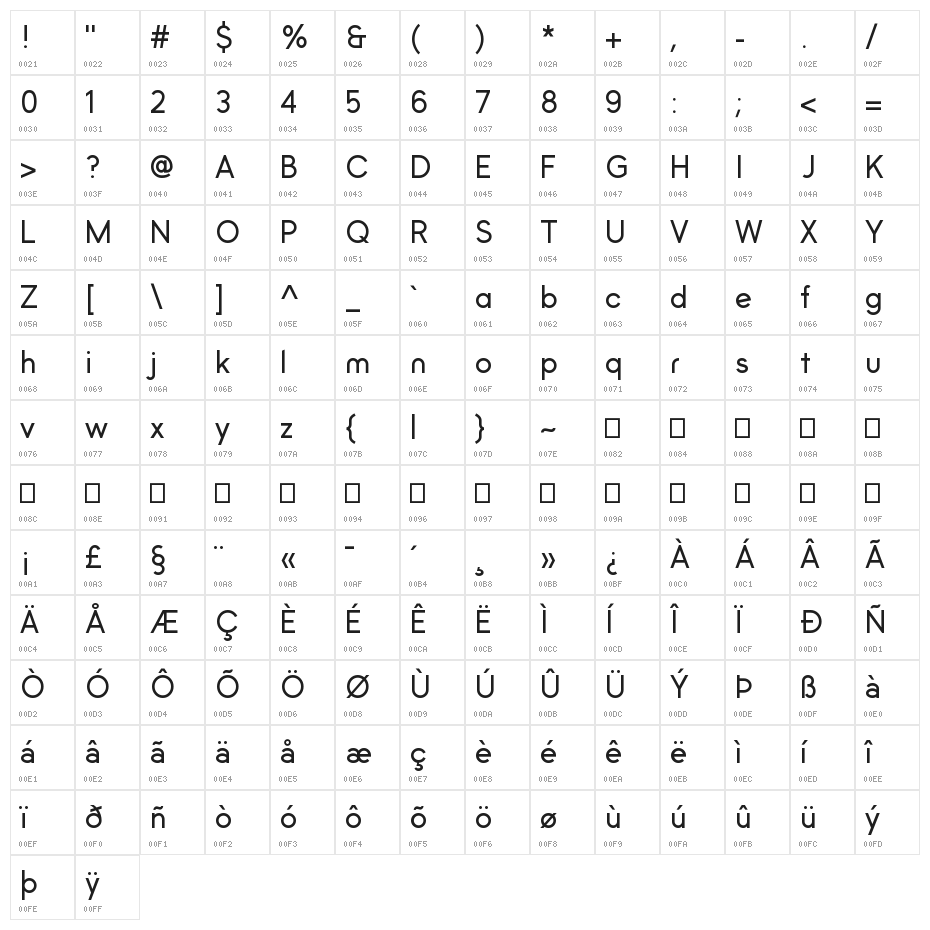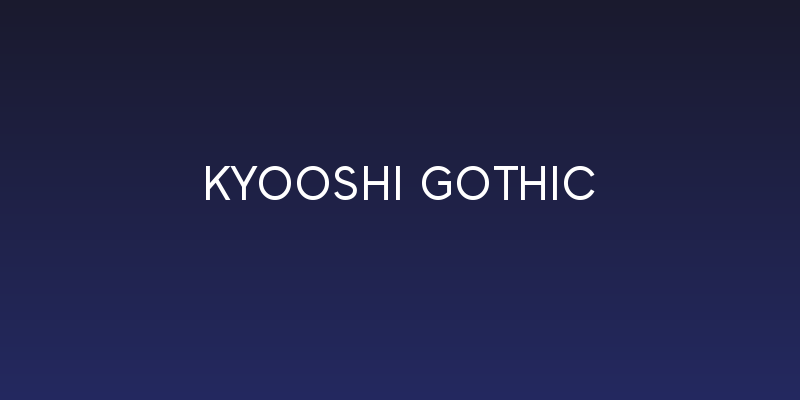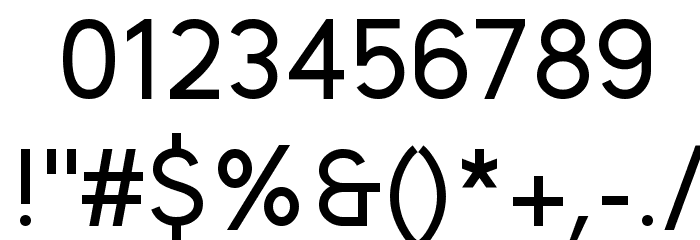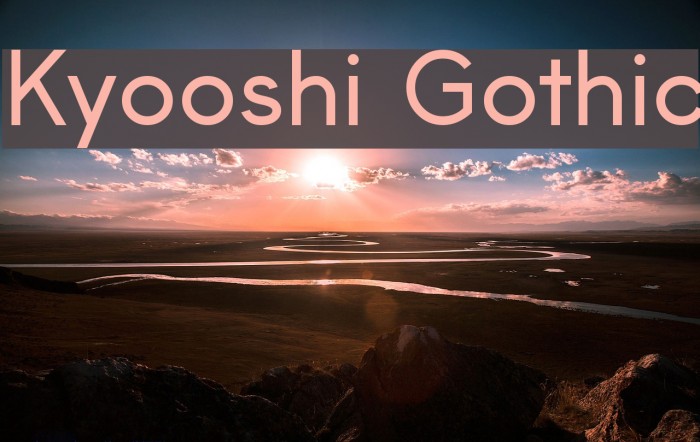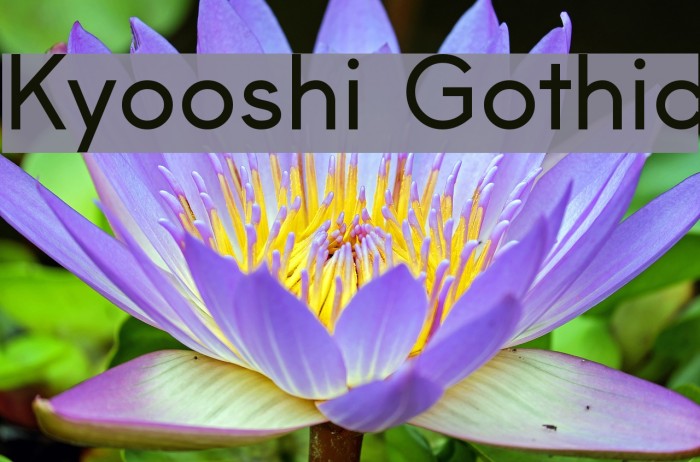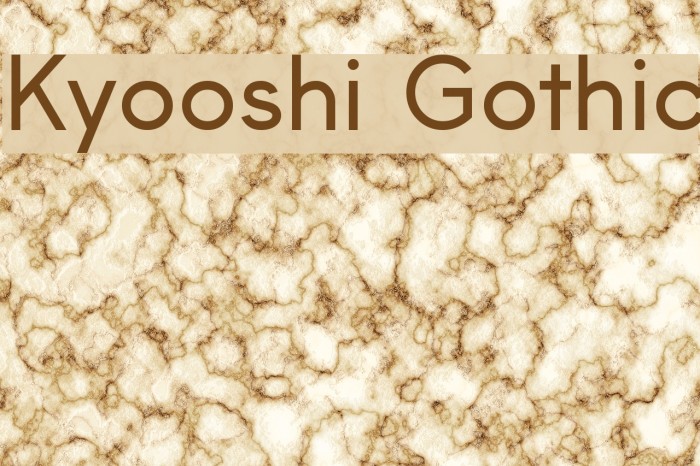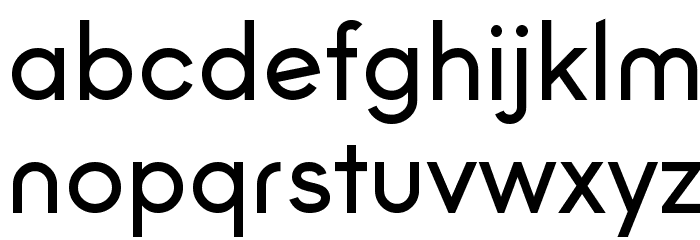
Kyooshi Gothic Font
Kyooshi Gothic Description
This font features a clean and modern sans-serif design, characterized by its geometric shapes and uniform stroke widths. The letters are well-proportioned, offering a harmonious balance between curves and straight lines. The uppercase and lowercase characters maintain a consistent style, enhancing readability and versatility. The numerals are clear and distinct, making them suitable for various applications. Special characters are designed with the same attention to detail, ensuring they integrate seamlessly with the rest of the typeface. Overall, this font exudes a contemporary and professional aesthetic, ideal for digital and print media.
| Proposed Projects | Ideal for branding, web design, advertising, and editorial layouts. |